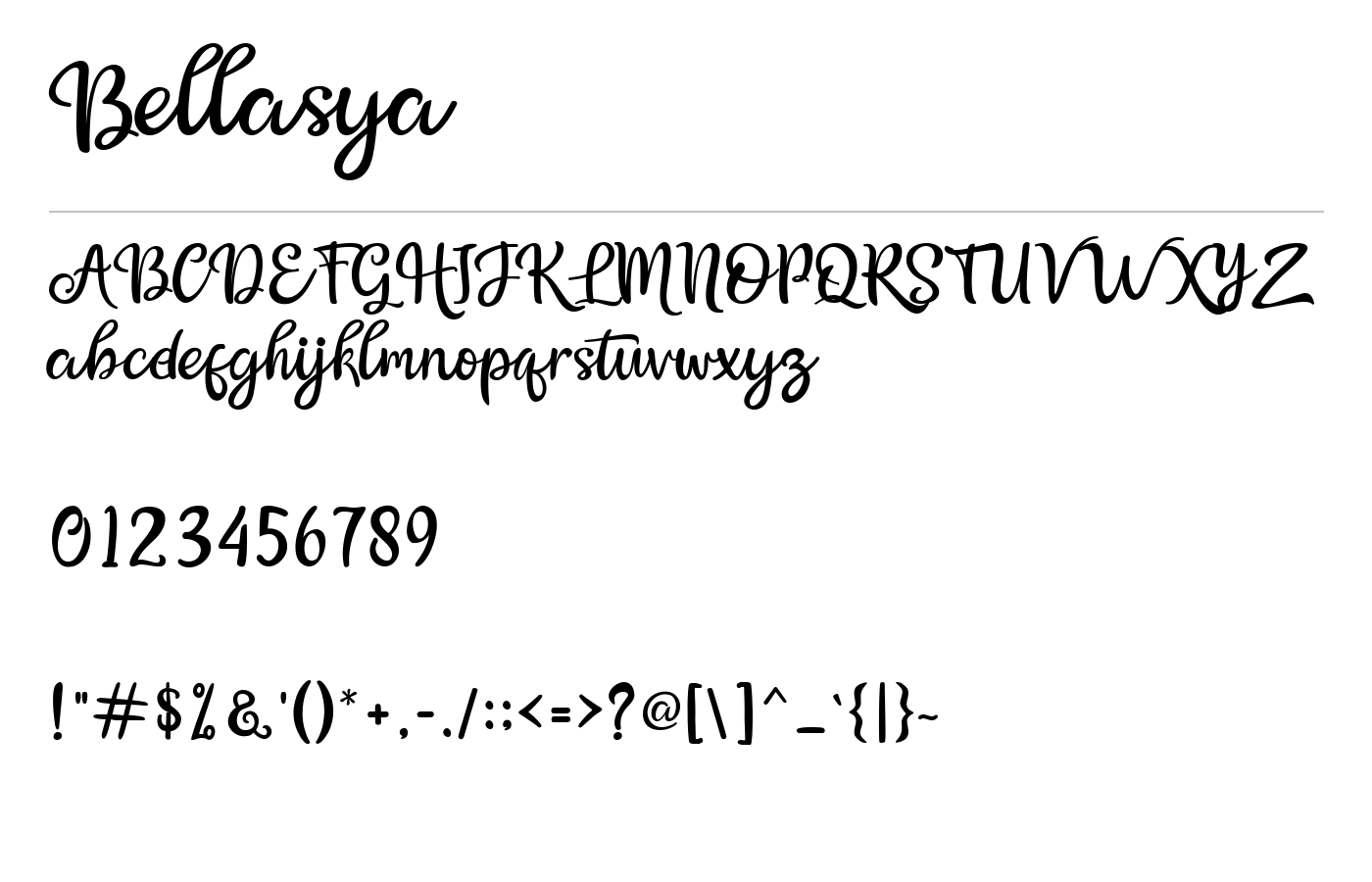
Bellasya is a lively and elegant script font with a hand-lettered feel, featuring medium weight strokes and smooth, flowing curves that create a warm and inviting personality. Its balanced lowercase and uppercase letters, along with distinctive swashes and friendly numerals, make it ideal for branding, invitations, and any design that seeks a personal, creative touch. This font works beautifully in projects needing charm and sophistication without sacrificing readability.
Bellasya Font
About Bellasya Font
| Font family | Bellasya Font |
| Designer | Yan Suari Shakti Pasaribu |